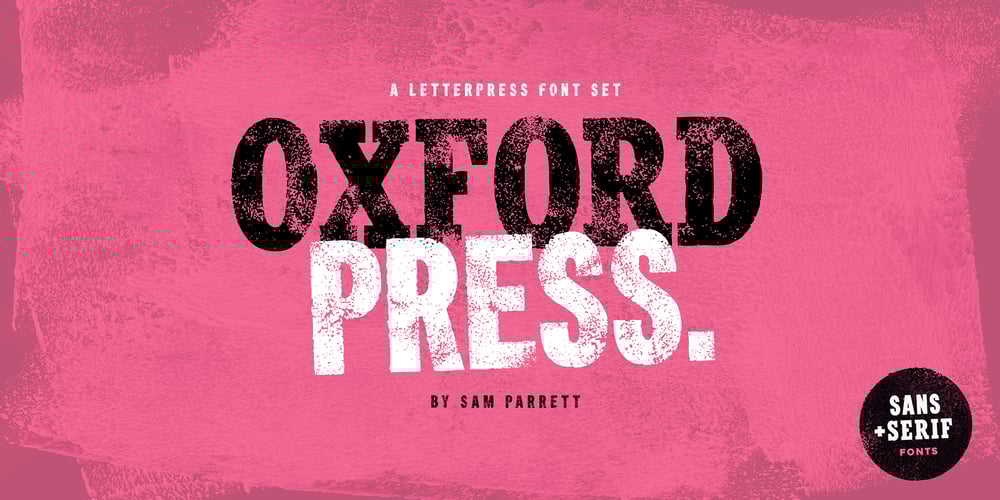
Oxford Press Font Family was designed by Sam Parrett and published by Set Sail Studios. Oxford Press contains 4 styles and family package options. Recreate authentic letterpress typography with Oxford Press, a set of chunky uppercase Serif & Sans fonts designed using real vintage metal letterpress blocks sourced from old printing companies. The Serif & Sans fonts each have two variations, ‘Clean’ and ‘Rough’—with the latter having real, highly detailed hand-made letterpress textures applied to each letter. Each letter of the ‘Rough’ fonts also has an alternate texture, which can be accessed simply by switching between upper and lowercase characters. The ‘Rough’ fonts can make a striking impact as bold header text for posters, adverts, prints and packaging, whereas the ‘Clean’ versions are more suited for smaller accompanying text, cleaner designs or for applying your own textures and styles. Language Support • English, French, Italian, Spanish, Portuguese, German, Swedish, Norwegian, Danish, Dutch, Finnish, Indonesian, Malay, Hungarian, Polish, Croatian, Turkish, Romanian, Czech, Latvian, Lithuanian, Slovak, Slovenian.